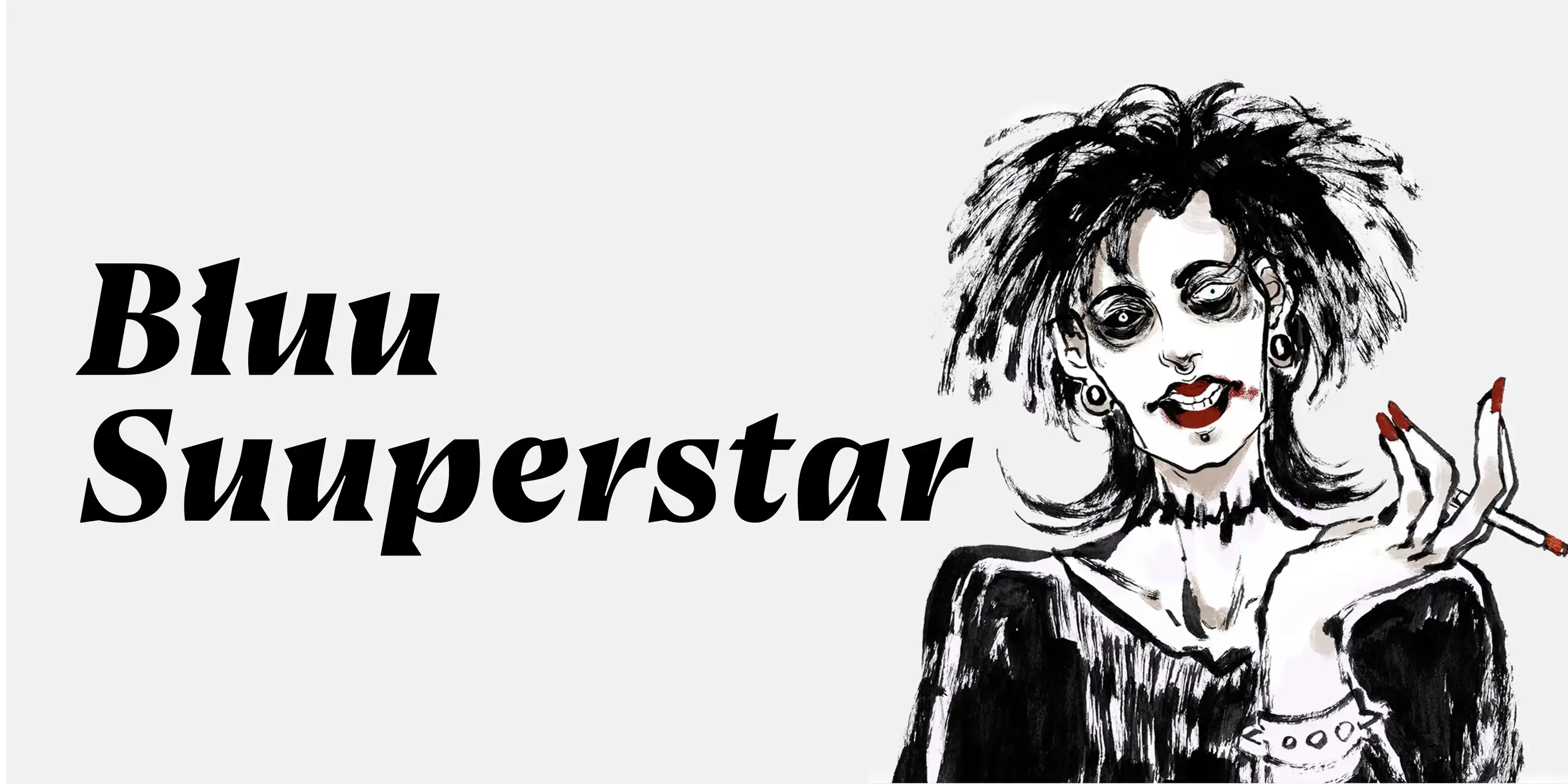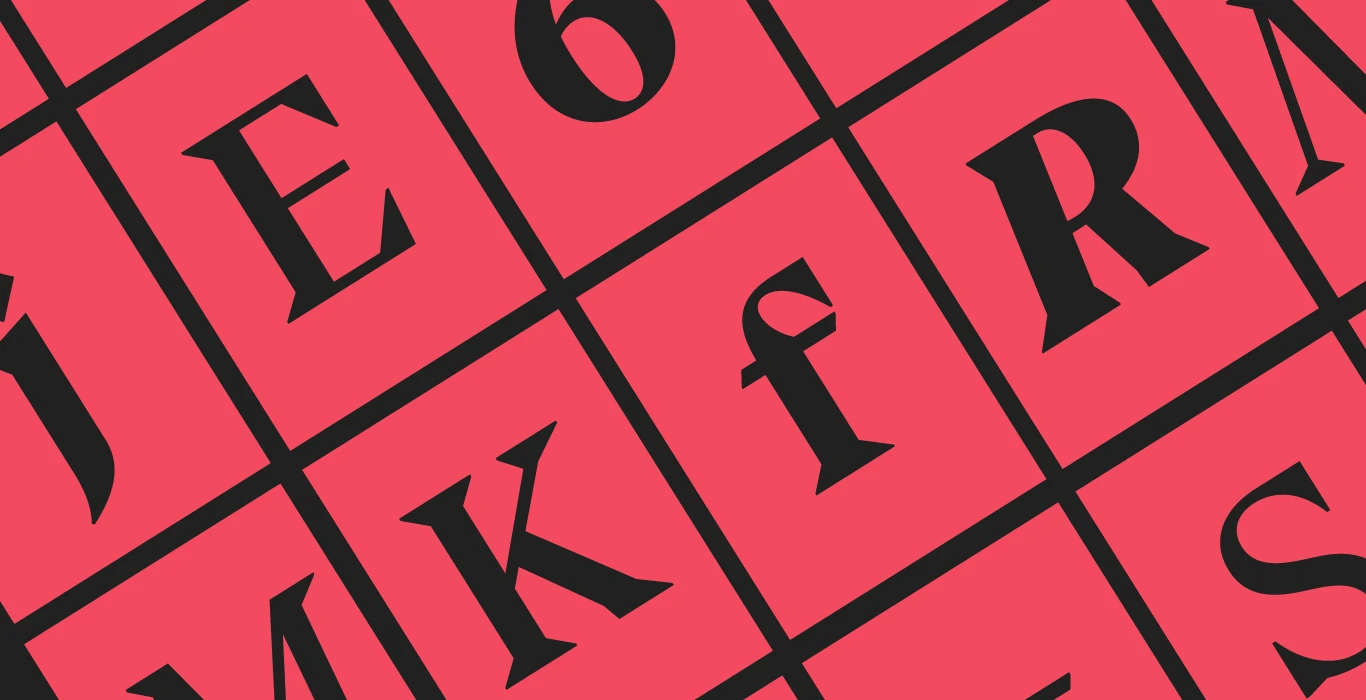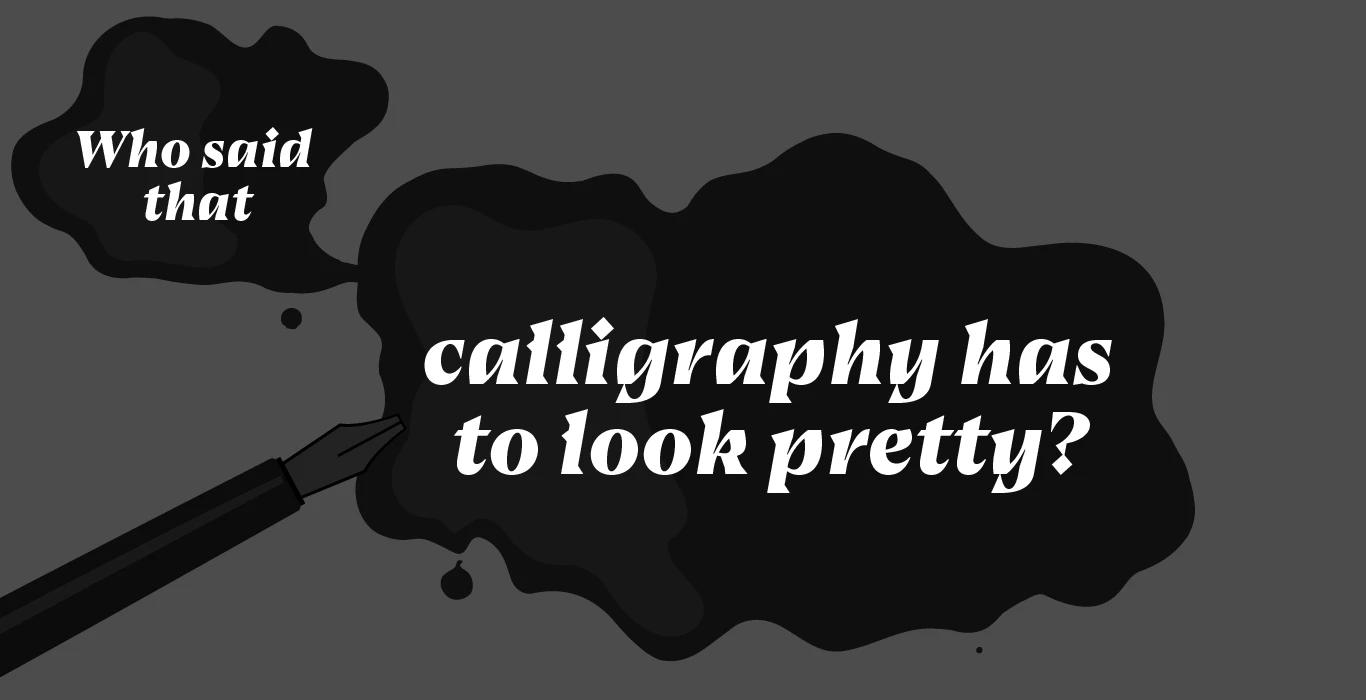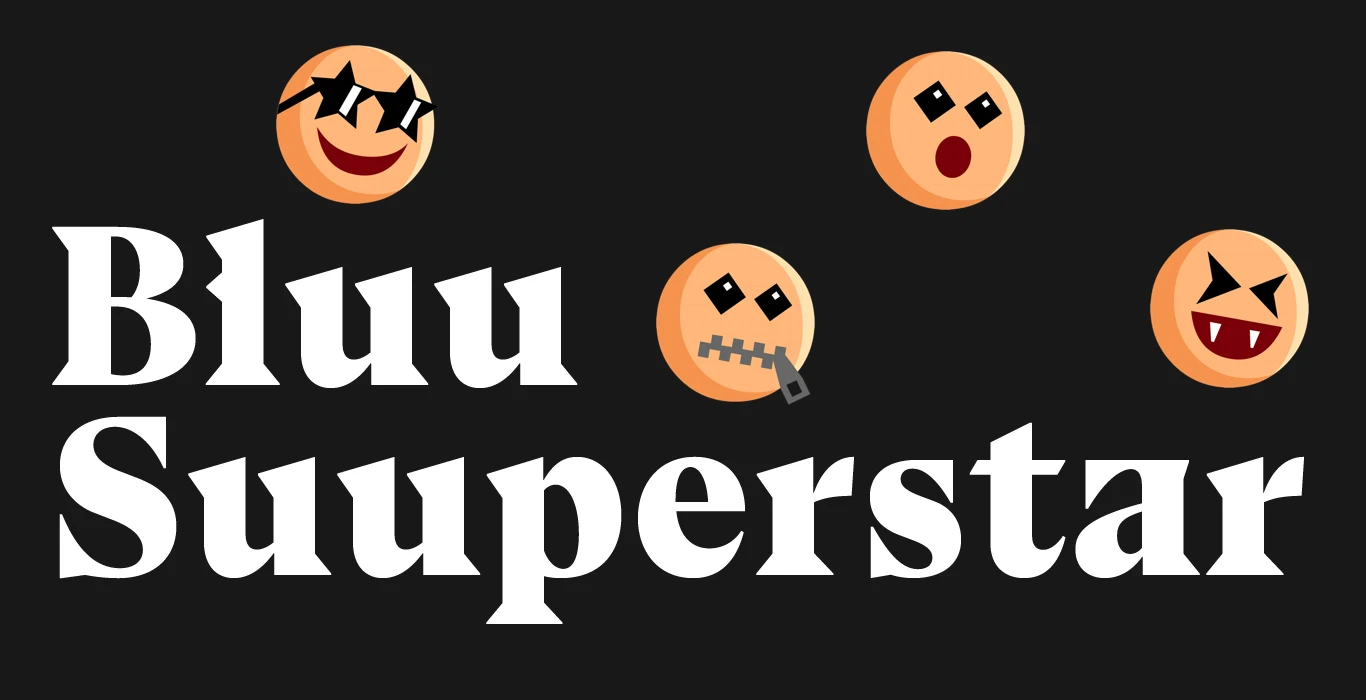
Bluu Suuperstar Font Family
Bluu Suuperstar is a brutalist serif font family distinguished by sharp triangular wedges, diamond dots, and a tall x-height. While its curves break abruptly, the rhythm remains grounded in the Garalde tradition, delivering a masterful variation on a familiar theme. Its italics follow a dynamic calligraphic model, independent from the uprights. Optimized for both immersive text and striking display, it is bold, energetic, and unapologetically sharp. Ideal for impactful headlines and editorial designs.
Features
OpenType Features
• Common Ligatures
• Fractions
• Historical Ligatures
• Lining Numerals
• Old Style Numerals
• Ordinal Numerals
• Proportional Numerals
• Stylistic Alternates
• Stylistic Sets
• Subscript
• Superscript
• Tabular Numerals